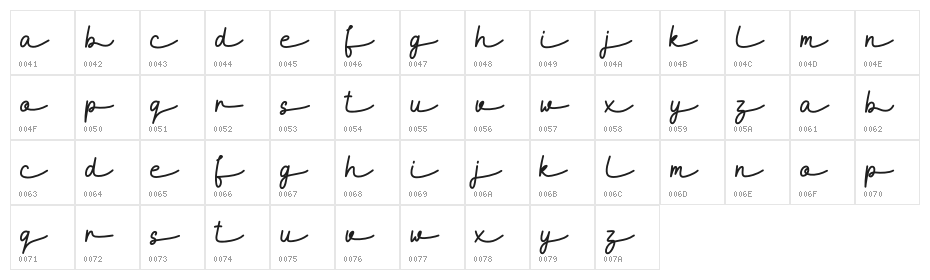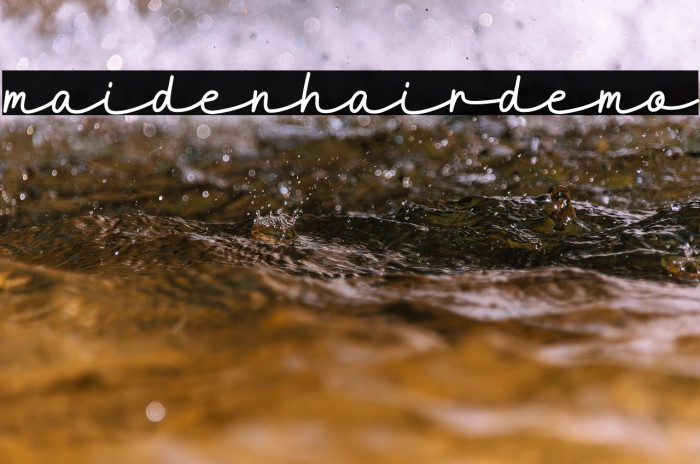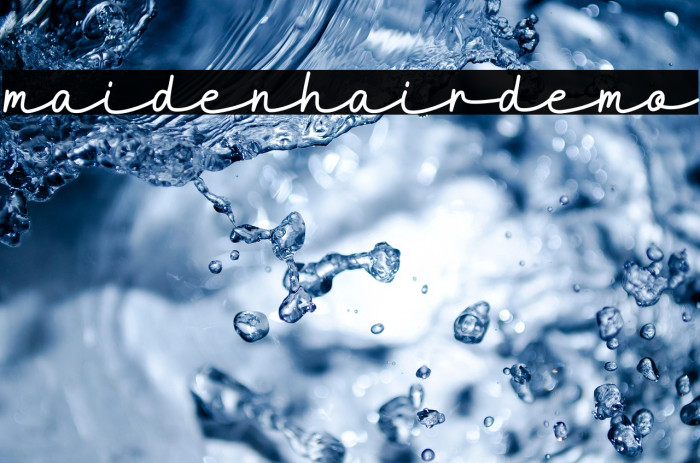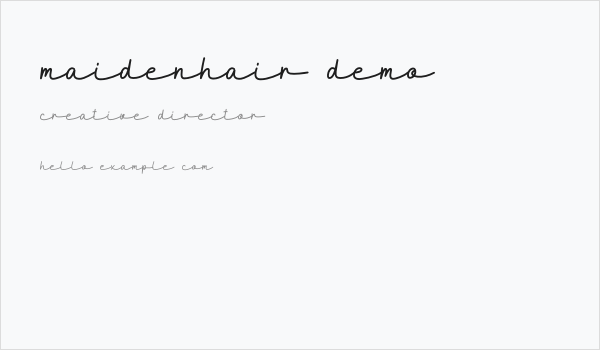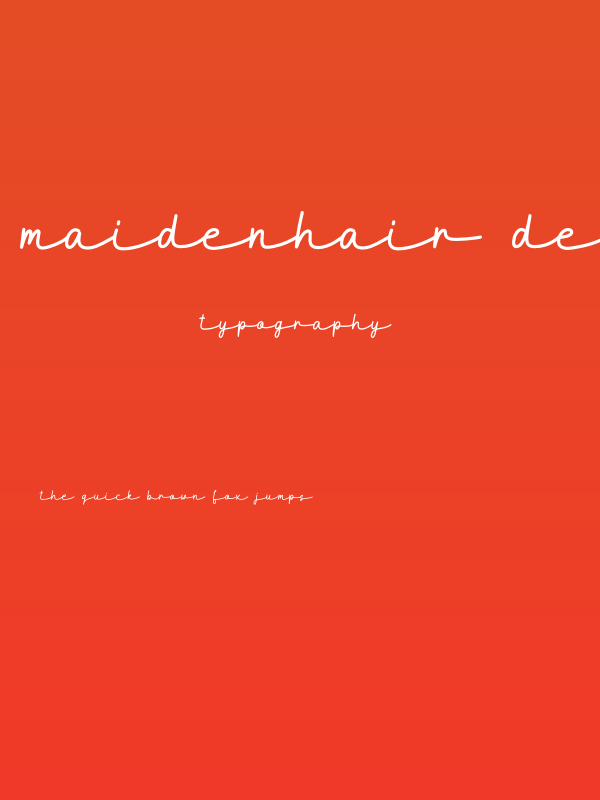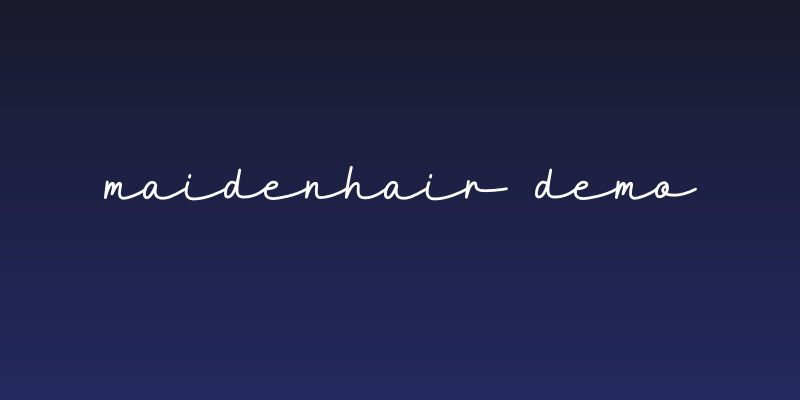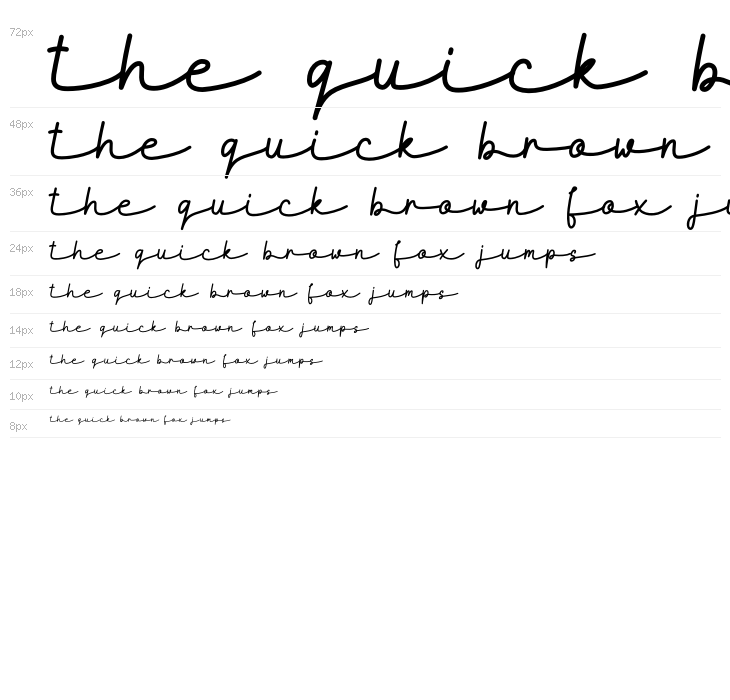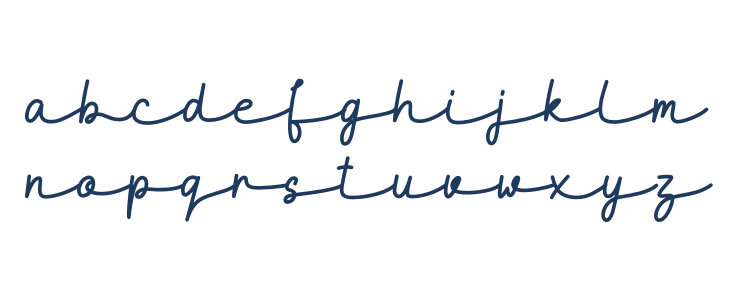
Maidenhair-DEMO Font
Maidenhair-DEMO Description
This font features a smooth, flowing script style that mimics natural handwriting. The characters are connected, creating a seamless and elegant appearance. The strokes are consistent in width, providing a balanced and harmonious look. The font exudes a casual yet sophisticated vibe, making it suitable for a variety of creative projects. The lowercase letters are particularly distinctive, with unique loops and curves that add character and charm. This font is perfect for projects that require a personal touch, such as invitations, greeting cards, and branding materials.
| Overall Style | Casual, Elegant |
| Use Case | Headlines, Invitations, Greeting Cards |
| Proposed Projects | Ideal for invitations, greeting cards, branding, and any project needing a personal touch. |